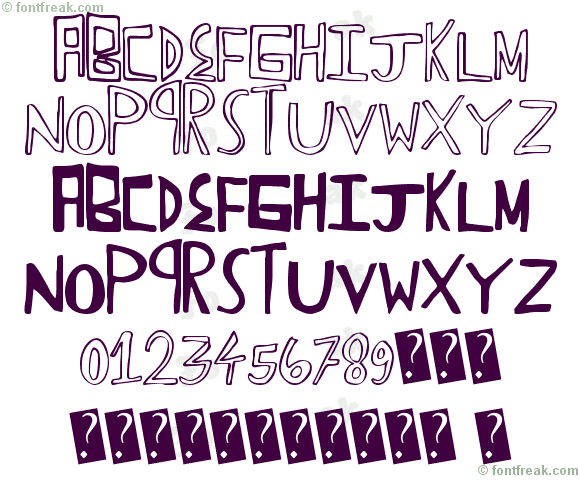
FunTrucks
The FunTrucks font by Xerographer Fonts is a delightful display typeface that brings a playful energy to any design project. Released in 2012, this font features bold, rounded letterforms with a slightly irregular baseline, giving it a hand-drawn feel that stands out in a crowd. Its stroke weight is consistent yet playful, with minimal contrast that enhances its friendly appearance. The ample spacing between the letters allows for easy readability, making it an ideal choice for various applications.
FunTrucks is particularly well-suited for creative projects aimed at engaging audiences. It shines in contexts like children's book covers, where its whimsical style captures the imagination, or on restaurant menus that seek to convey a casual, welcoming atmosphere. Additionally, this font can elevate birthday party invitations, providing a fun and festive flair. Graphic designers may also find it useful for branding materials that aim to convey a sense of fun and approachability.
The target audience for the FunTrucks font includes graphic designers, small business owners, and content creators looking to add a unique touch to their projects. Whether you are crafting promotional materials, social media graphics, or playful merchandise, this font offers a versatile option that can adapt to various creative needs.
What sets the FunTrucks font apart is its ability to infuse personality into design without sacrificing readability. Its free availability as freeware makes it accessible for all, allowing creators to experiment freely without budget constraints. For those seeking a distinctive typeface that embodies joy and creativity, the FunTrucks font free download is an excellent addition to any designer's toolkit.